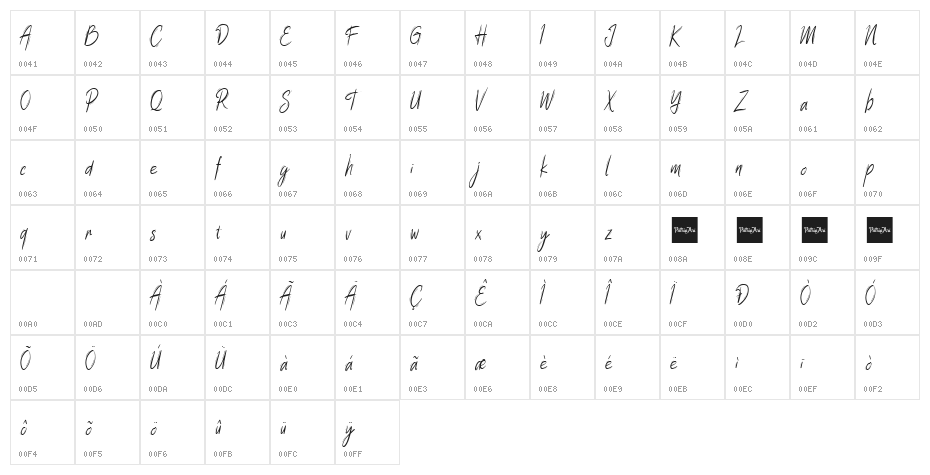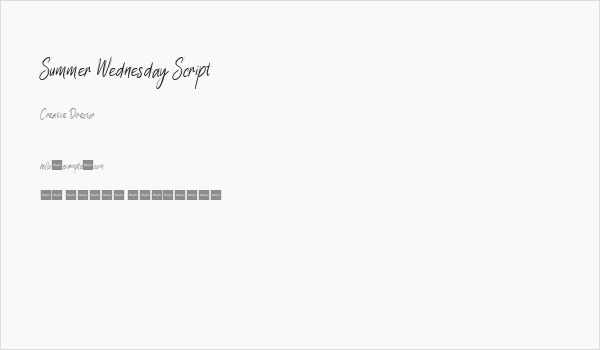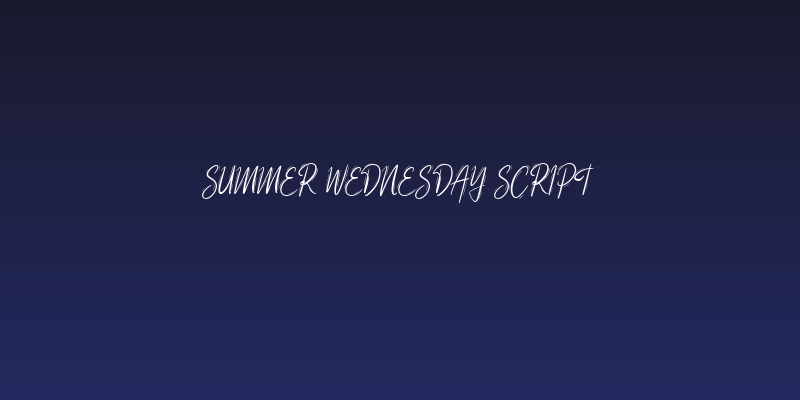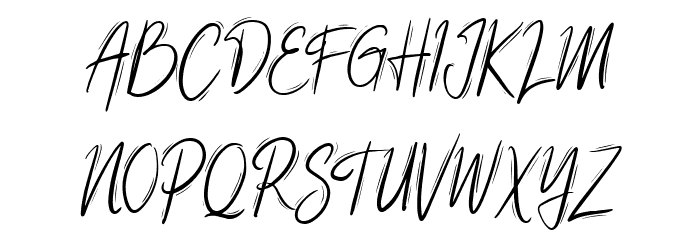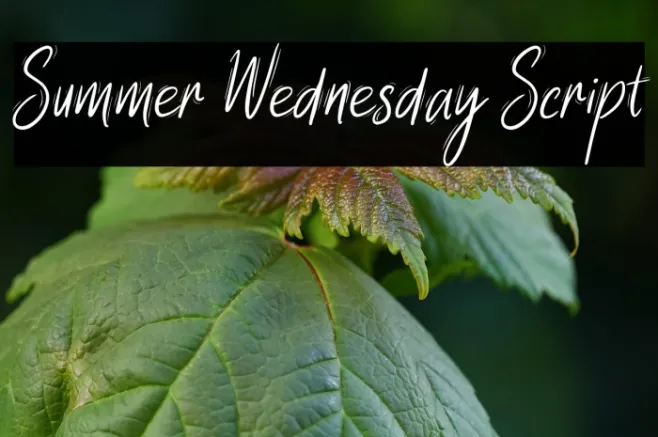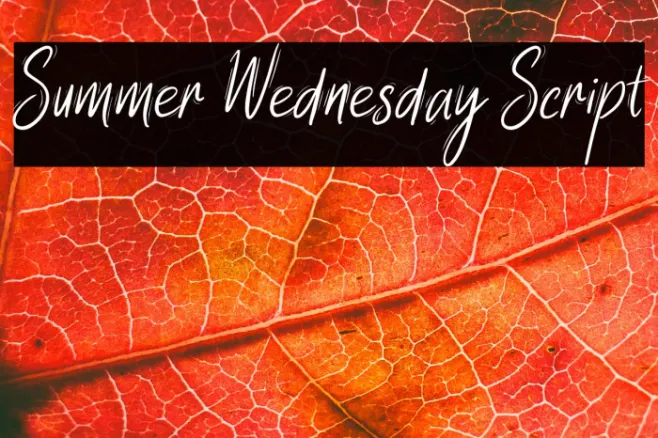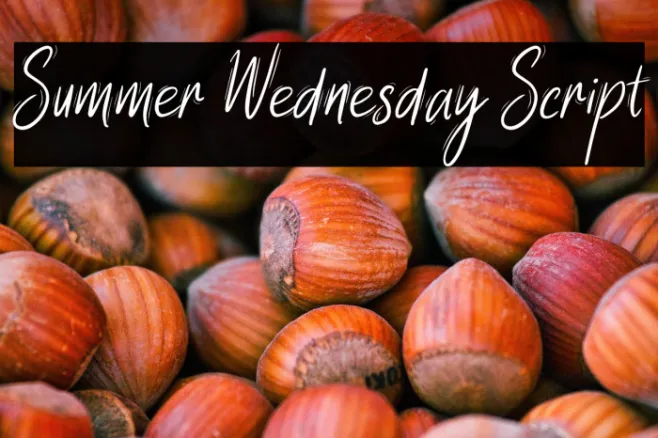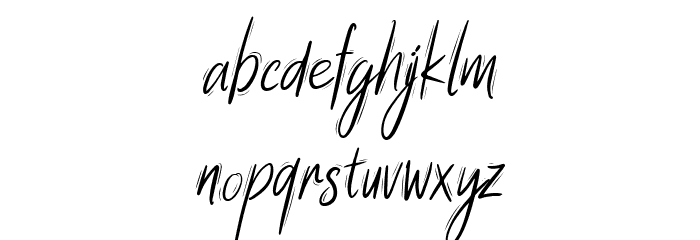
Summer Wednesday Script Font
Summer Wednesday Script Description
This font features an elegant and flowing script style, characterized by its smooth, cursive strokes and a sense of fluidity. The uppercase letters are bold and dynamic, with a slight slant that adds a touch of sophistication. The lowercase letters maintain a consistent style, offering a harmonious blend of curves and lines that enhance readability. The overall appearance is both artistic and refined, making it suitable for creative and formal applications. The font's design is reminiscent of handwritten calligraphy, providing a personal and inviting feel.
| Proposed Projects | Ideal for wedding invitations, greeting cards, branding projects, and elegant logos. |